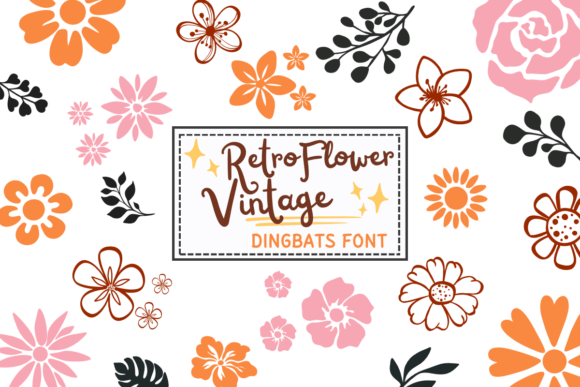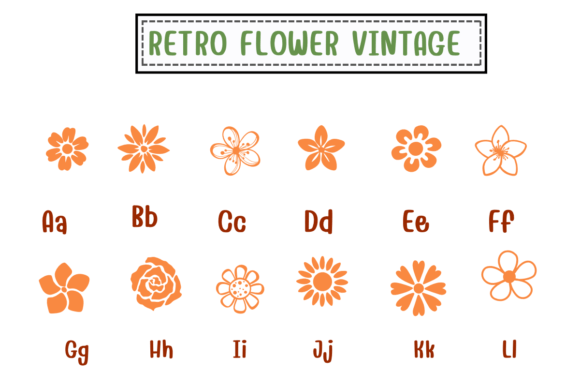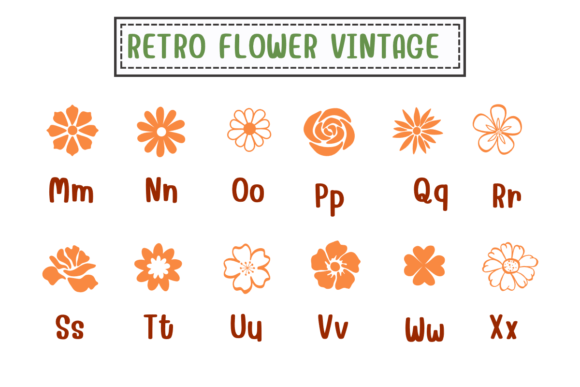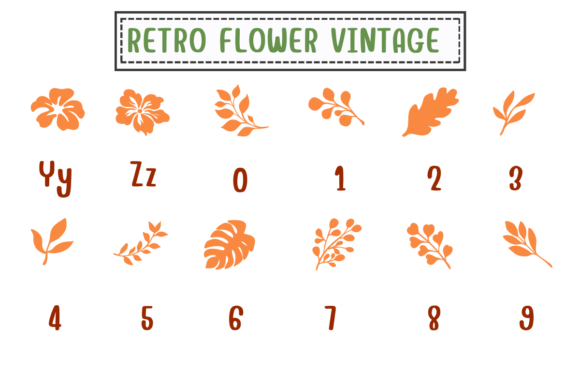
Retro Flower Vintage Font
About the Retro Flower Vintage Font
Elevate your designs with Retro Flower Vintage Font, a font that combines sophistication with readability. Retro Flower Vintage
is a decorative font made up of small flower designs instead of letters. Each character is a unique floral shape, giving a vintage, playful feel. It’s great for adding charming flower accents to your designs!
This font shines in projects requiring a whimsical, vintage aesthetic. Ideal uses include short headlines, branding for boutiques or cafes with a retro feel, and packaging for products targeting a younger, feminine demographic. It also works well for greeting cards, invitations, or short decorative text on posters.
However, Retro Flower Vintage is unsuitable for body text or longform content due to its low readability. Avoid using it in user interfaces (UI) or situations demanding high legibility.
Pair it with a clean sans-serif like Open Sans for contrast and readability, or a classic serif such as Garamond for a more refined vintage feel. A simple, geometric sans-serif would also provide a nice counterpoint to the organic nature of the floral designs. The overall personality is playful and charming, yet retains a touch of vintage elegance.
Retro Flower Vintage Font Usage Examples
Retro Flower Vintage Font Example